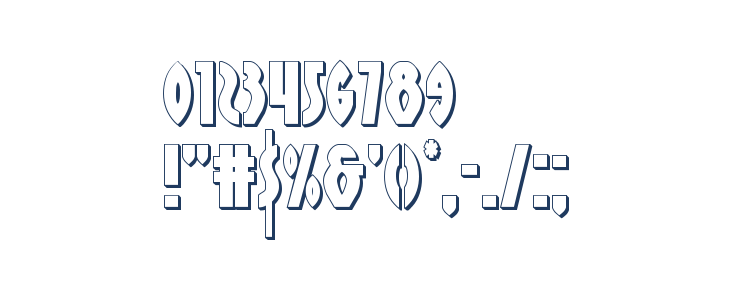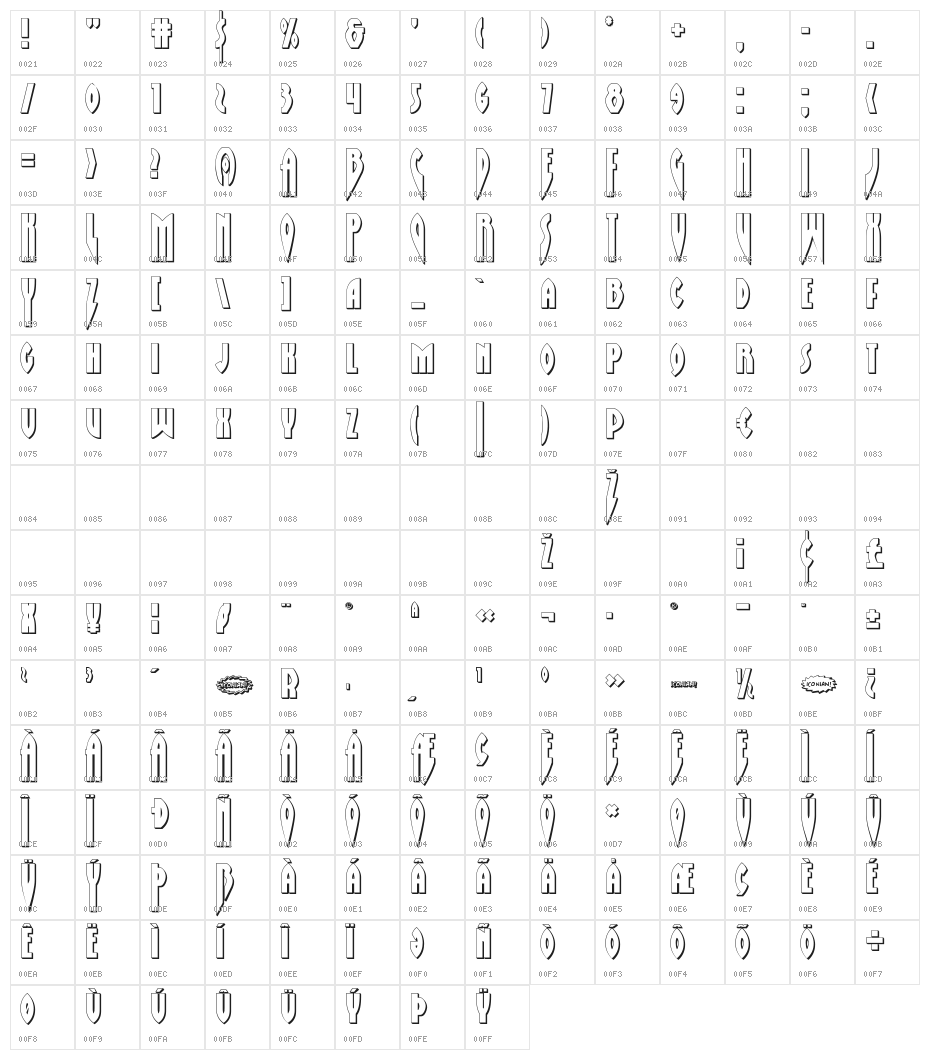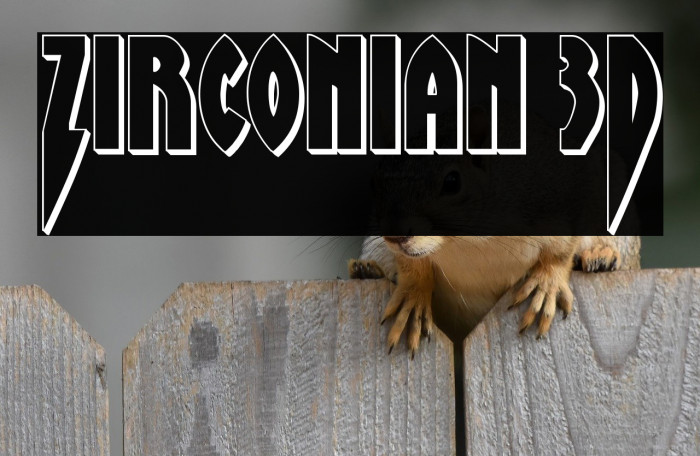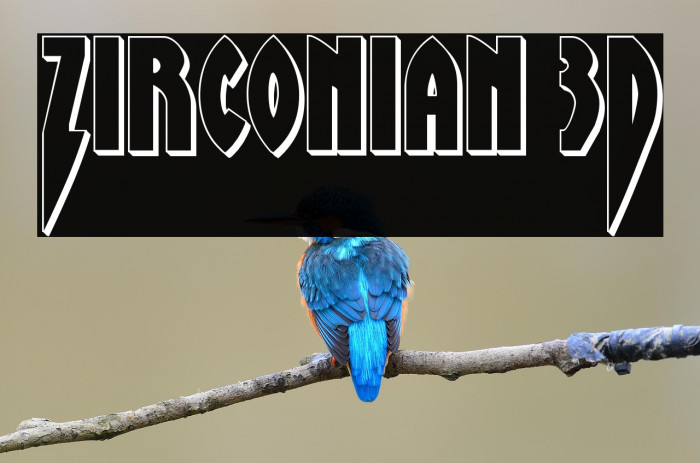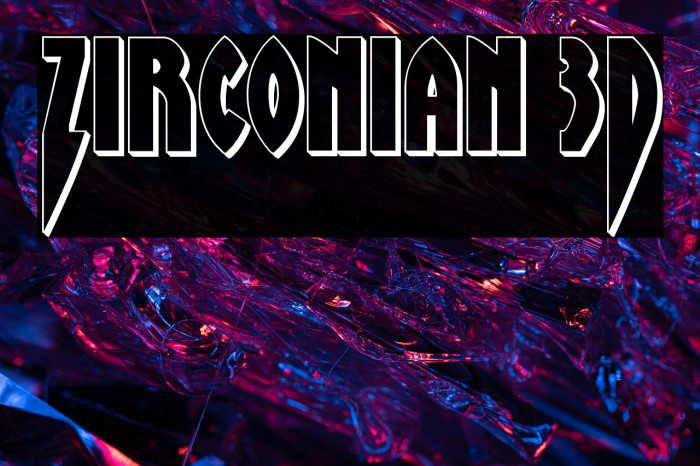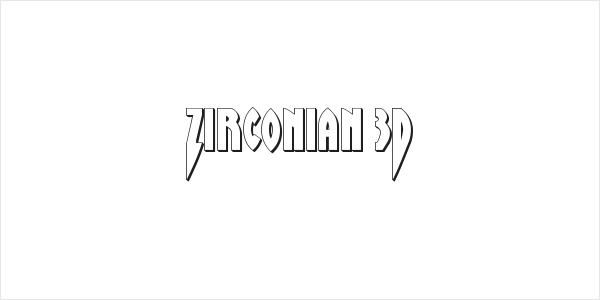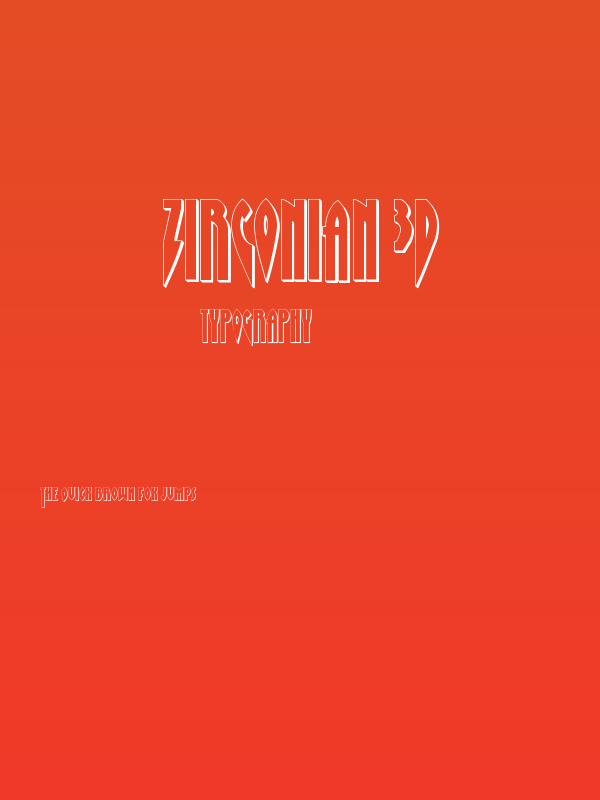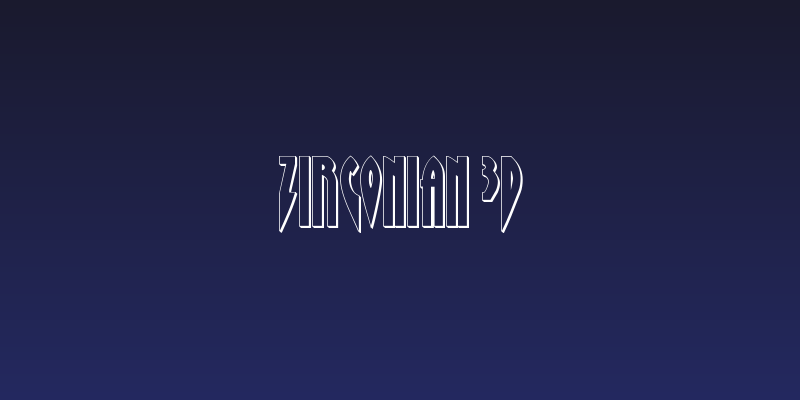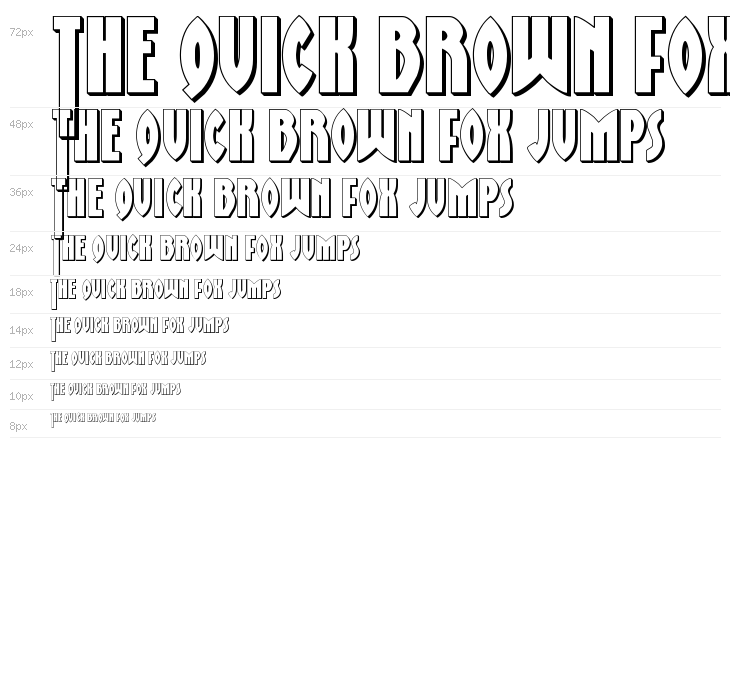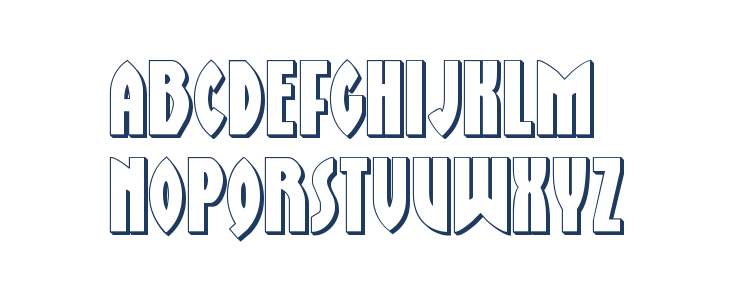
Zirconian 3D Font
Zirconian 3D Description
This font features a bold, three-dimensional appearance with a strong geometric influence. The uppercase letters are characterized by their thick, block-like forms and sharp angles, giving them a futuristic and dynamic look. The 3D effect is achieved through the use of shadowing and layering, creating a sense of depth and movement. The lowercase letters maintain the same boldness and geometric style, ensuring consistency throughout the typeface. Numbers and special characters are designed to match the overall aesthetic, making them suitable for a variety of design applications. The font's unique style makes it ideal for eye-catching headlines and display purposes.
| Proposed Projects | Ideal for use in posters, logos, video game graphics, and any project requiring a bold, attention-grabbing typeface. |